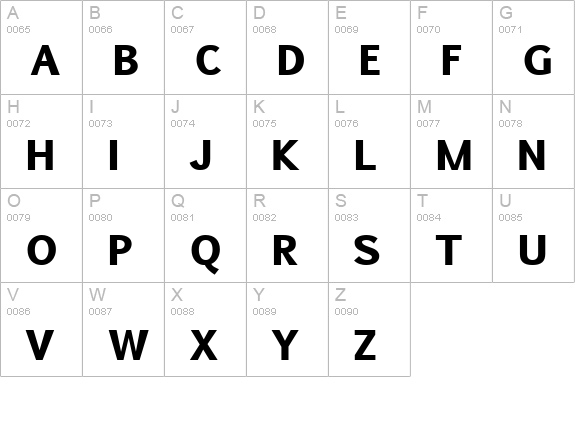
Pigiarniq Heavy Font Details
Pigiarniq Heavy is a heavy, high-impact variant in the Pigiarniq typeface family \xE2\x80\x94 well suited to high-impact headlines, posters, and display advertising.
Introducing Pigiarniq Heavy Font, a bold and powerful typeface that exudes strength and character. Designed with meticulous attention to detail, this font is perfect for making a bold statement in your designs. With its thick and solid letterforms, Pigiarniq Heavy demands attention and adds a touch of gravitas to any project. Whether you're creating a striking logo, eye-catching headlines, or impactful posters, this font will make sure your message is delivered with impact. What sets Pigiarniq Heavy Font apart is not just its boldness, but also its versatility. It seamlessly combines modern aesthetics with a touch of traditional craftsmanship, making it suitable for a wide range of design applications. From branding and advertising to editorial and packaging, this font can elevate your designs to the next level. One of the best parts about Pigiarniq Heavy Font is that it is available for free download at FontsMarket.com. Yes, you read that right – this stunning and powerful font can be yours without spending a dime. FontsMarket.com is a trusted source for high-quality fonts, and they are generously offering Pigiarniq Heavy Font for free, so you can enjoy its creative potential without any barriers. So, if you're looking for a font that combines strength, style, and versatility, look no further than Pigiarniq Heavy Font. Download it now for free at FontsMarket.com and unleash the power of bold typography in your designs.